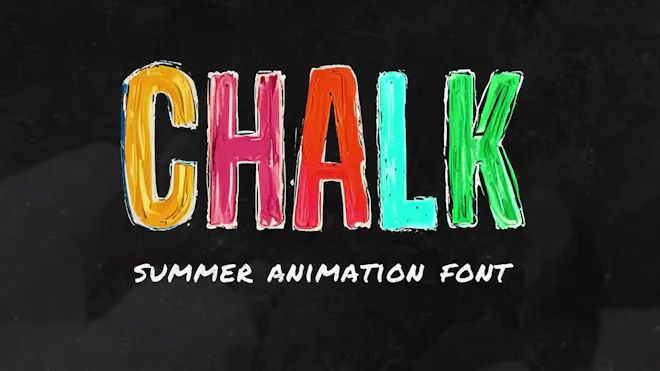
This stock motion graphics video pack includes 44 different clips of hand-drawn chalk typefaces - letters, numbers, and symbols on a transparent alpha channel in a seamless loop.